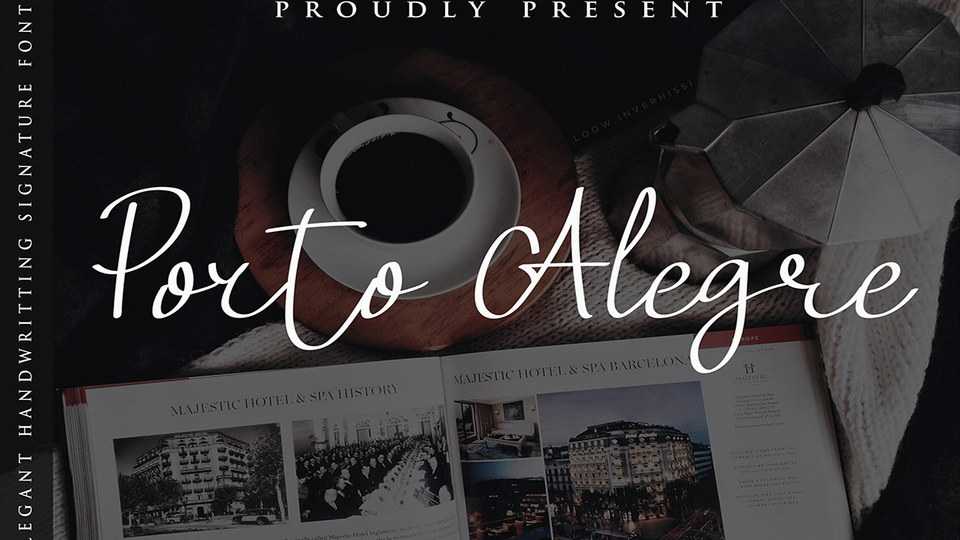
Download Porto Alegre font, an elegant and stylish signature handwritten typeface. It is an ideal choice for watermark on photography, signature or logo design, flyer designs and more.
Designer: Fontmine Studio